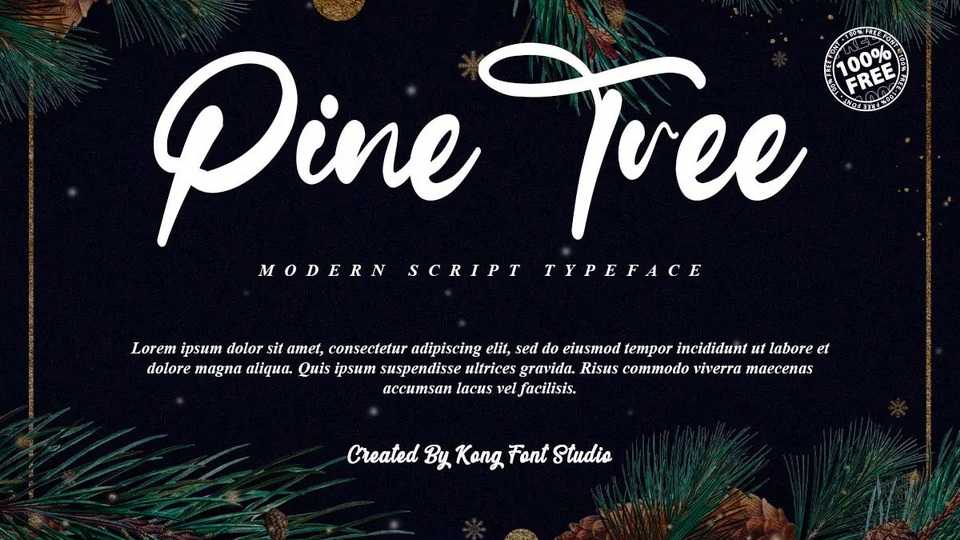
Download Pine Tree font, a beautiful modern calligraphy script typeface. Pine Tree font is very suitable as to make adorable invitation for wedding, birthday, special day, crafts and prints.
Designer: Kong Font Studio